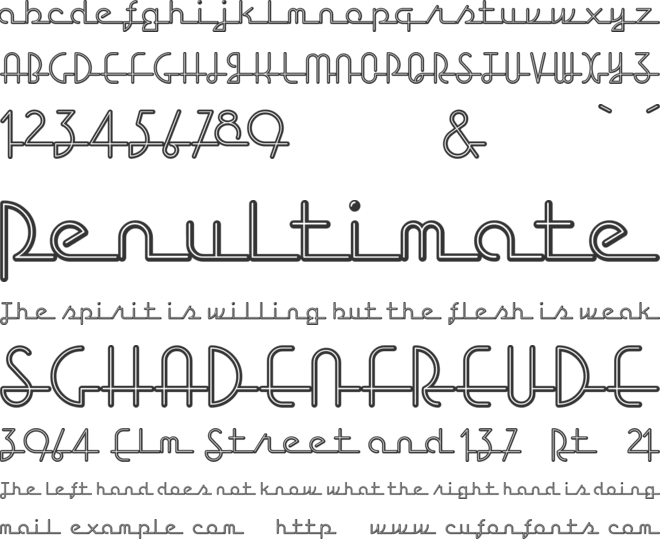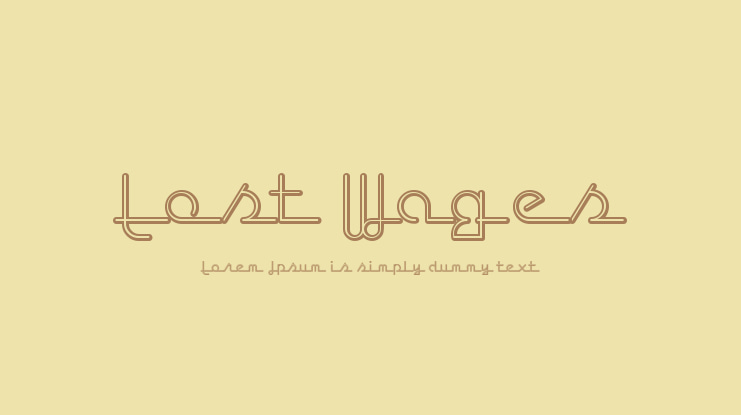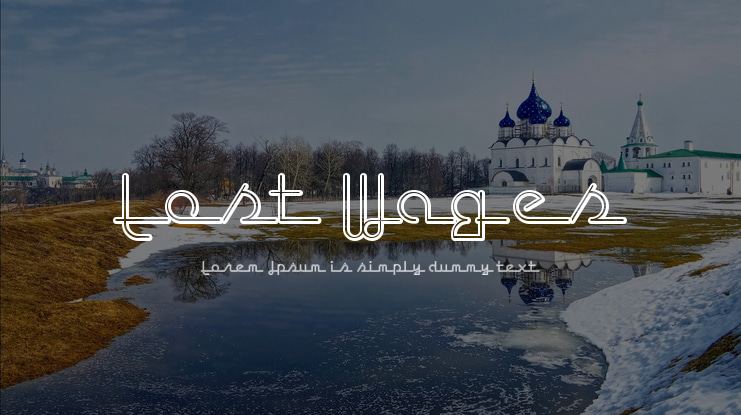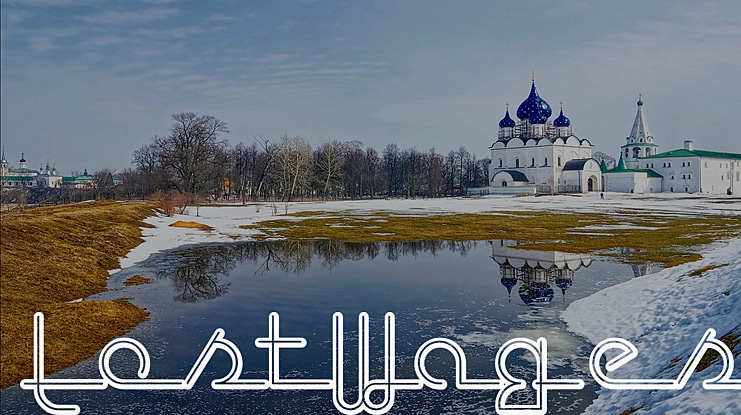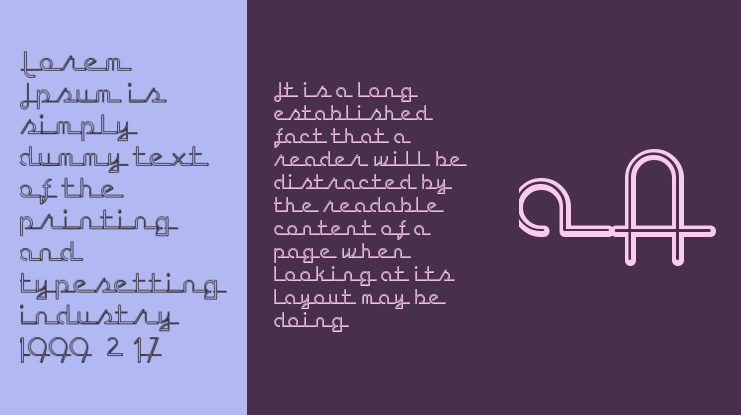
Lost Wages Font
Surfing the web in search of inspiration can take you to some strange places. Here’s a new take on retro neon lettering, inspired by a font I saw on Mamie Van Doren’s official website (http://www.mamievandoren.com, in case you’re interested). Yes, the original “Sex Kitten from Outer Space” is still around, and it seems her most valuable assets have only increased with age.